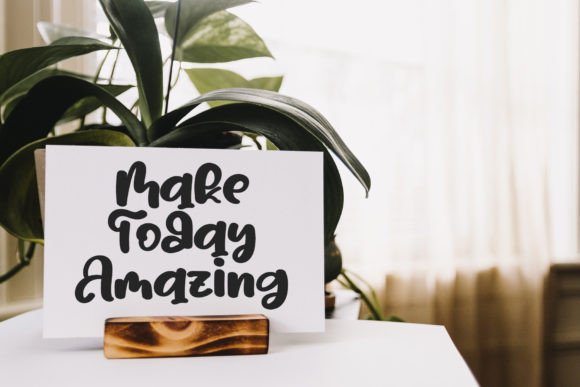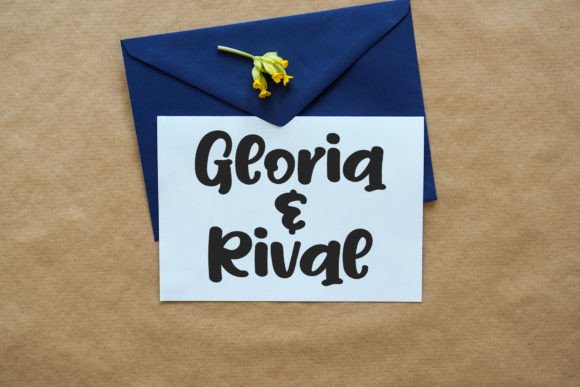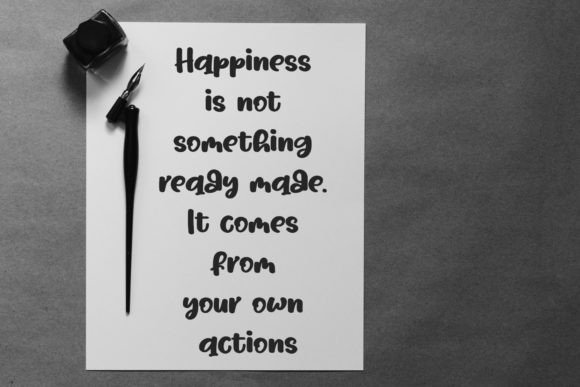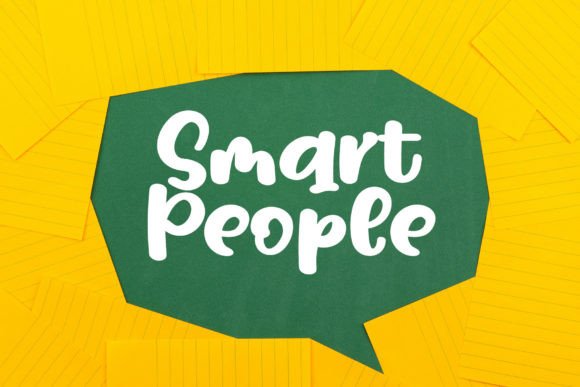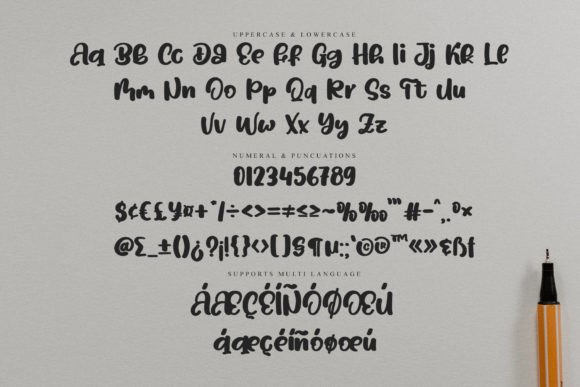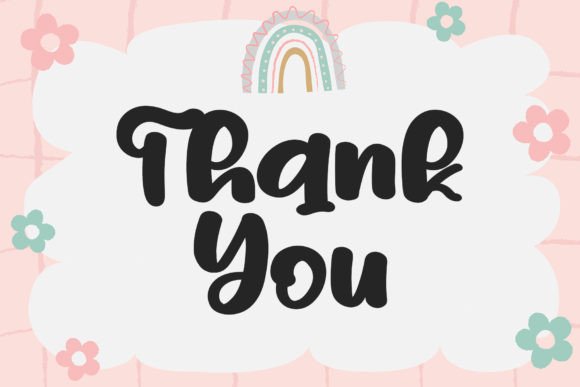
Michelar Font
About Michelar Font
“Michelar” is not just a font; it’s a playful handwritten typeface with a contemporary atmosphere and impeccable form, inspired by timeless classic calligraphy. Balanced and varied, this font was designed to enhance the beauty of your projects, adding a touch of playfulness with a nod to classic calligraphic elegance.
The playful and contemporary qualities of “Michelar” are immediately apparent in its handwritten design. Each letter is crafted with a sense of whimsy and modernity, contributing to an overall aesthetic that is both charming and up-to-date. This makes it an ideal choice for projects that demand a font with a playful vibe and a timeless elegance.
The versatility of “Michelar” becomes evident in its adaptability to various design contexts. Whether used in branding to create a distinctive visual identity or to add a playful touch to marketing materials, this font confidently fits into a diverse range of creative projects.
Imagine “Michelar” gracing invitations, where its playful script adds a warm and personal feel. Picture it in digital graphics or social media posts, creating a visually engaging and contemporary atmosphere. “Michelar” becomes a font that not only looks playful but also enhances the overall visual appeal of your designs.
In summary, “Michelar” is not just a font; it’s a design companion that brings a playful and contemporary touch to your creative projects. Let it be the choice for adding charm to your branding, invitations, and more. With “Michelar,” every project becomes an opportunity to showcase the beauty of handwritten typography with a modern and playful twist.